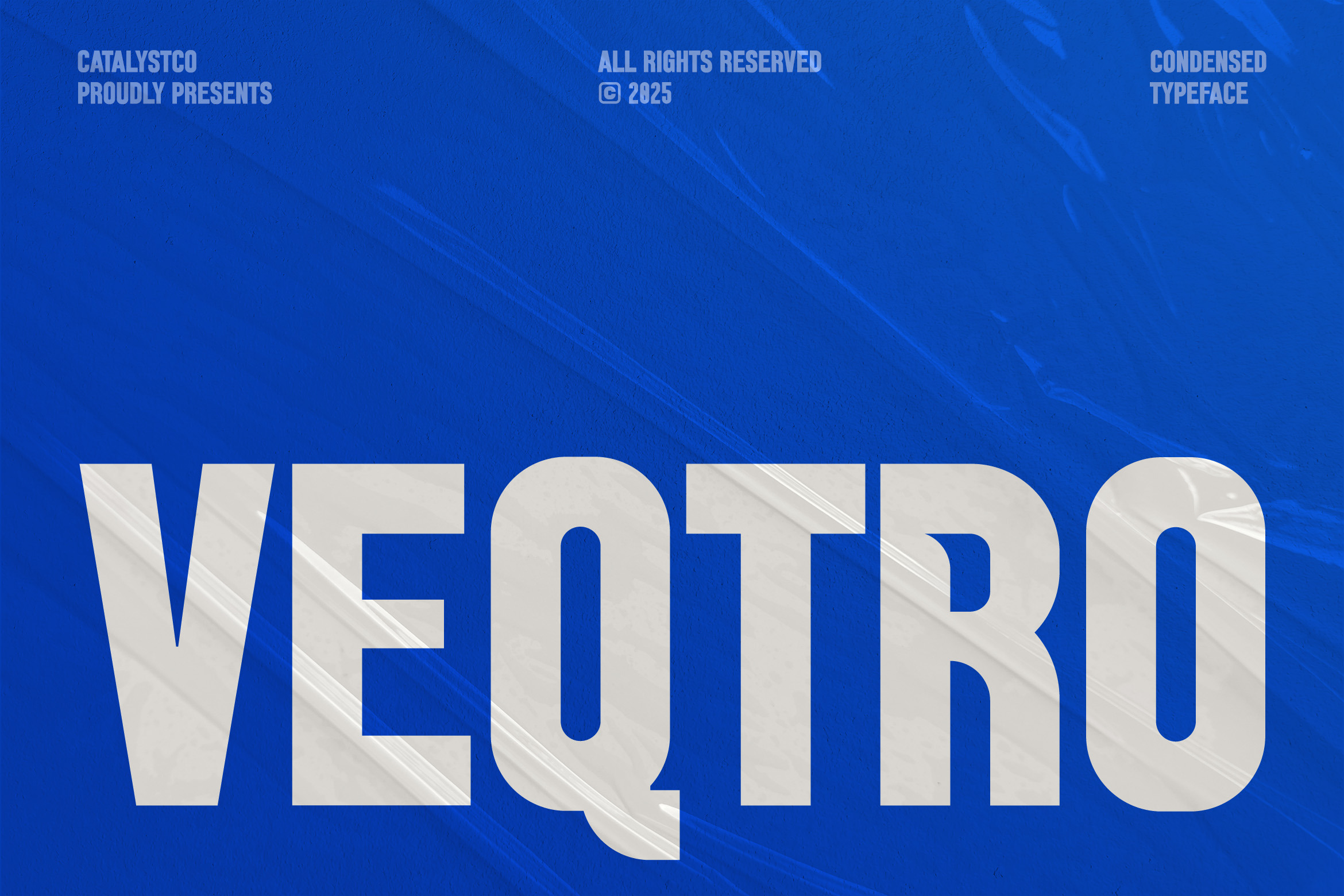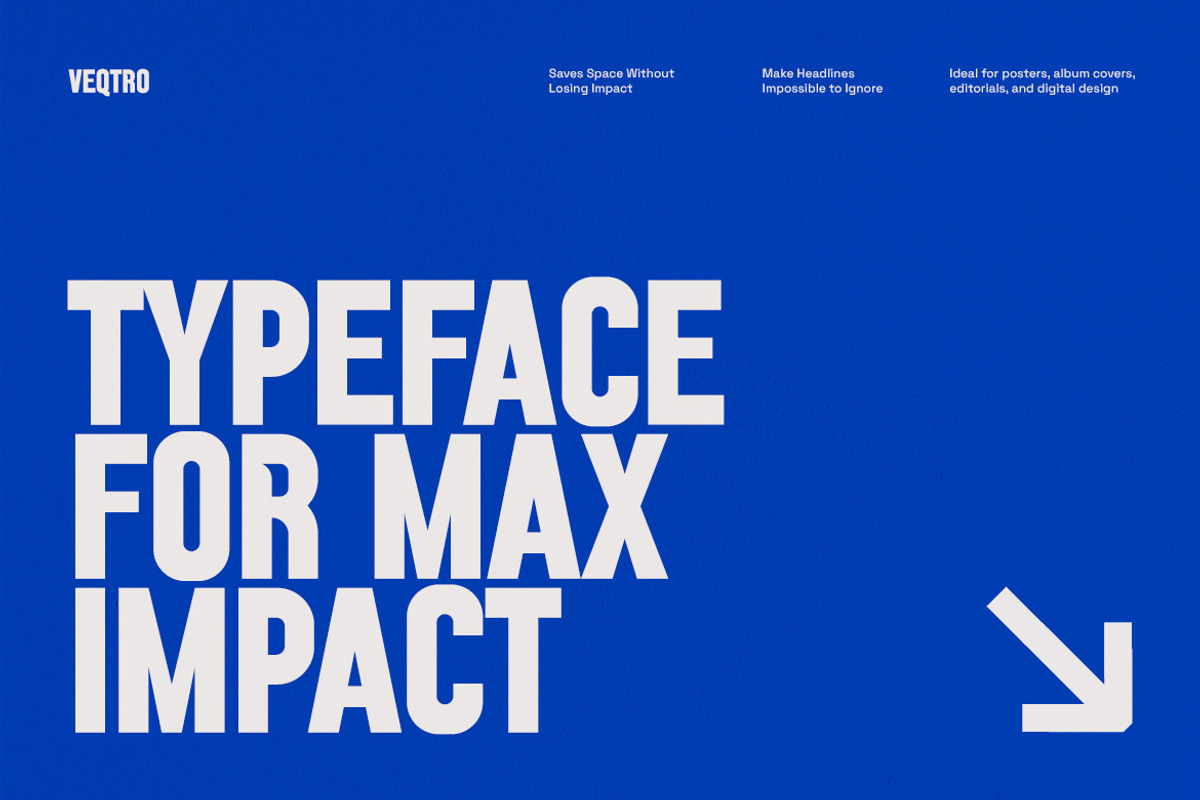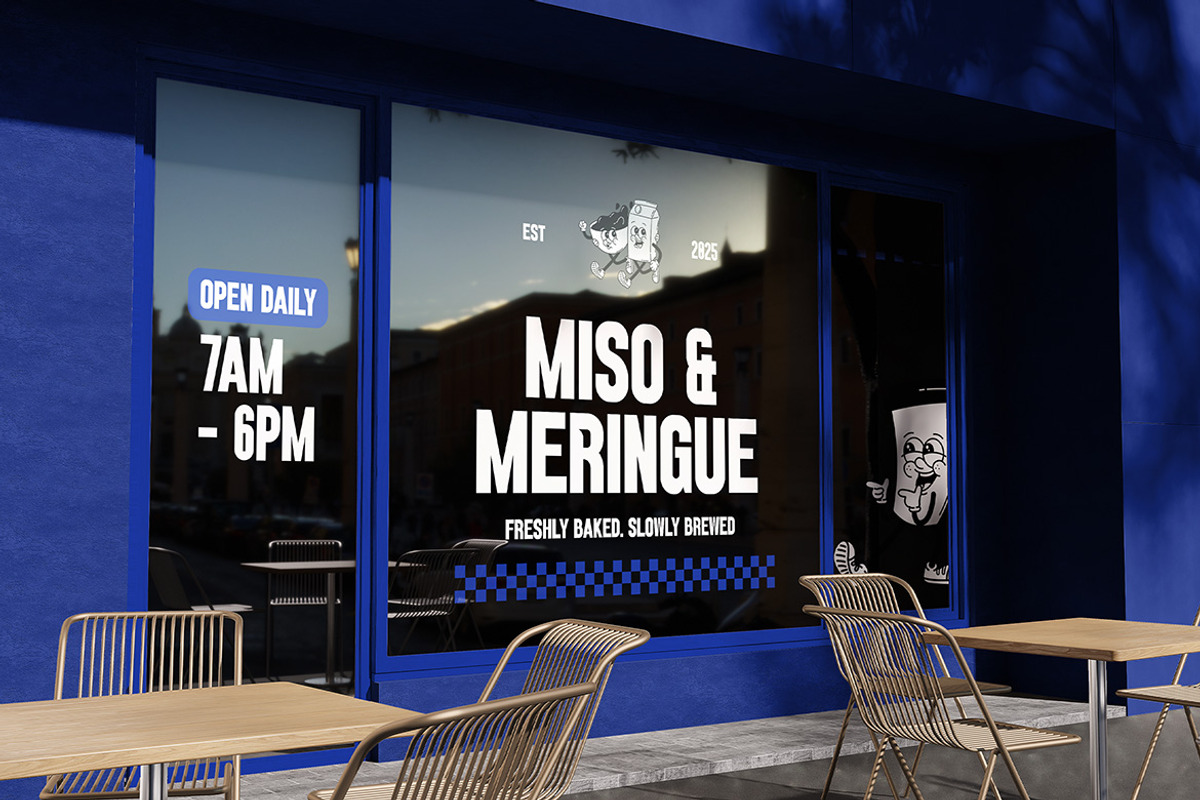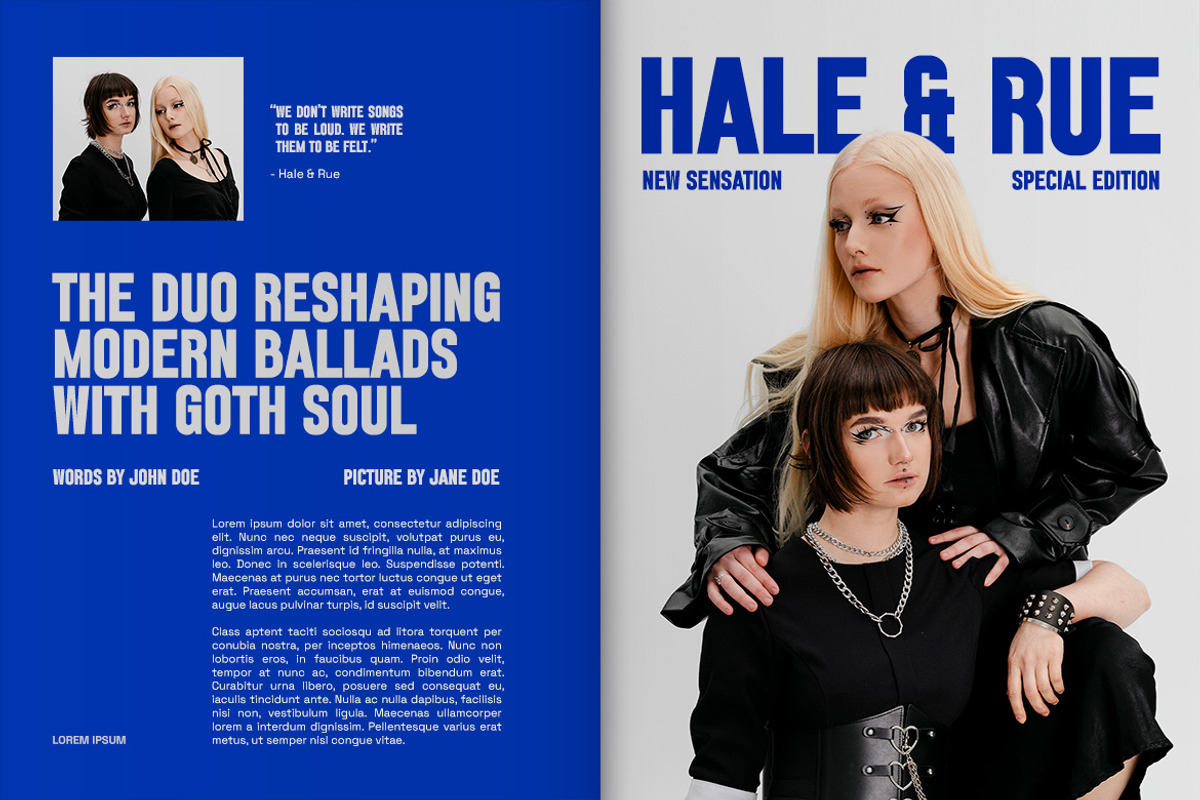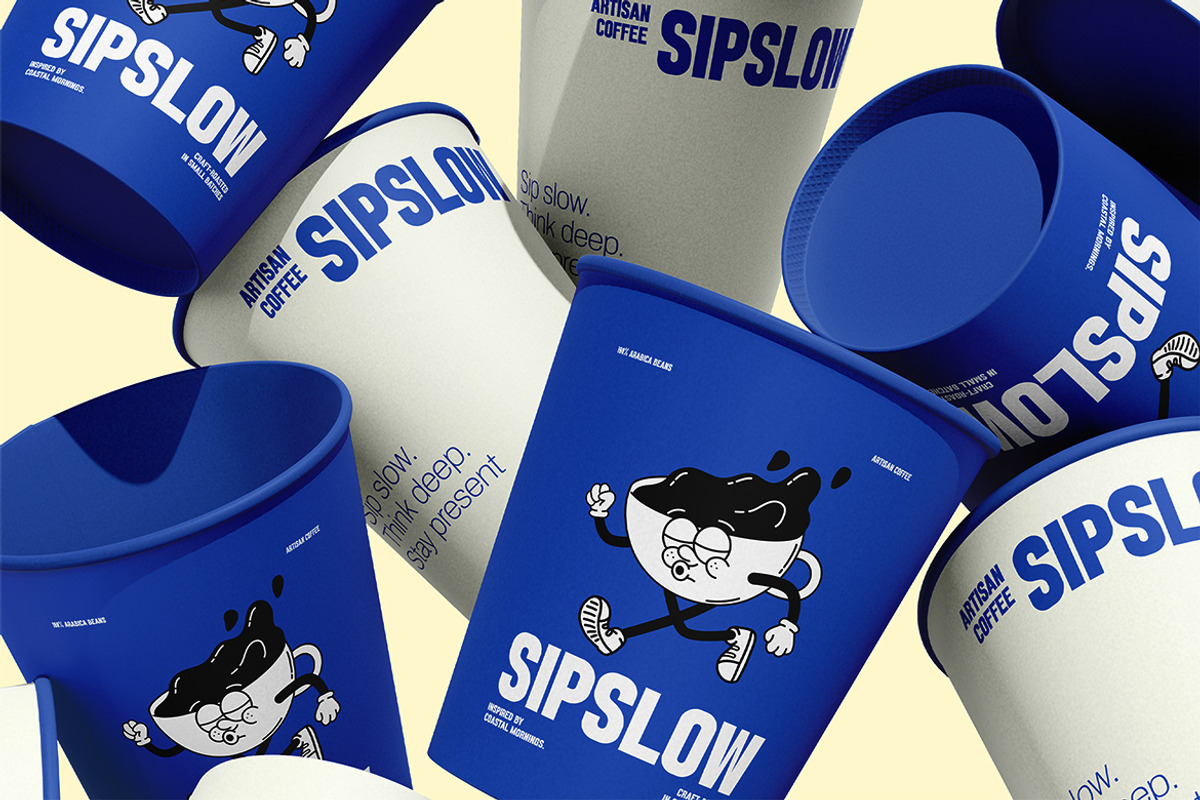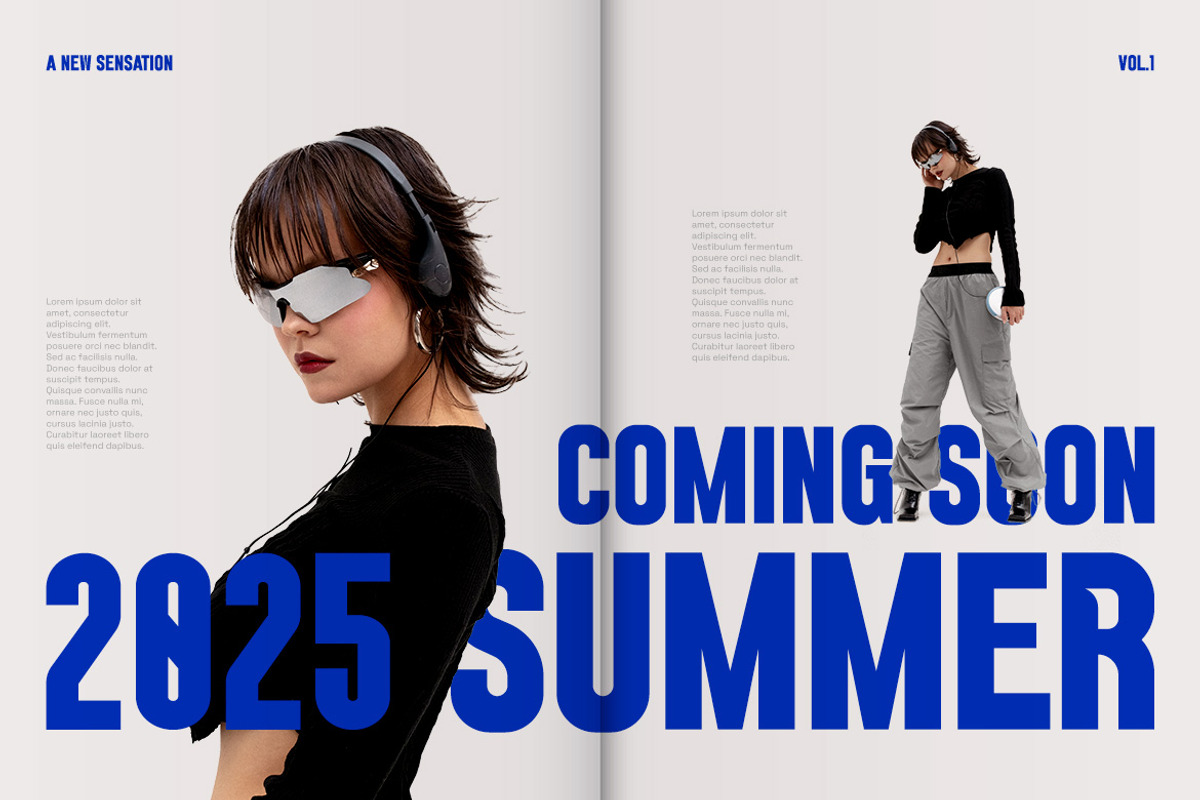
Vectro Condensed Typeface Font
Veqtro is a modern condensed sans serif typeface designed for maximum visual impact without sacrificing legibility. Featuring bold, geometric letterforms with sharp edges, this font is perfect for headline use, posters, album covers, editorials, branding, and high-impact visual designs. Veqtro supports a full range of Latin-based languages with multilingual characters and symbols, ensuring global usability.
Veqtro is ideal for designers seeking a bold, condensed typeface that commands attention while saving space. Its clean geometry and strong presence make it perfect for headlines, posters, branding, and marketing visuals. Whether used in print or digital design, Veqtro delivers high-impact aesthetics without compromising clarity.
- Condensed grotesque style with soft geometric build
- Subtle humanist curves for added warmth
- Rounded terminals for better clarity
- Balanced stroke weight with clean vertical stress
- Optimized spacing for display and text use
- Brand identity systems aiming for a modern, professional tone
- UI/UX templates for tech products, apps, and digital platforms
- Editorial layouts and minimalist magazine or book design
- Clean, modern packaging and label design
- Elegant social media templates and digital marketing kits